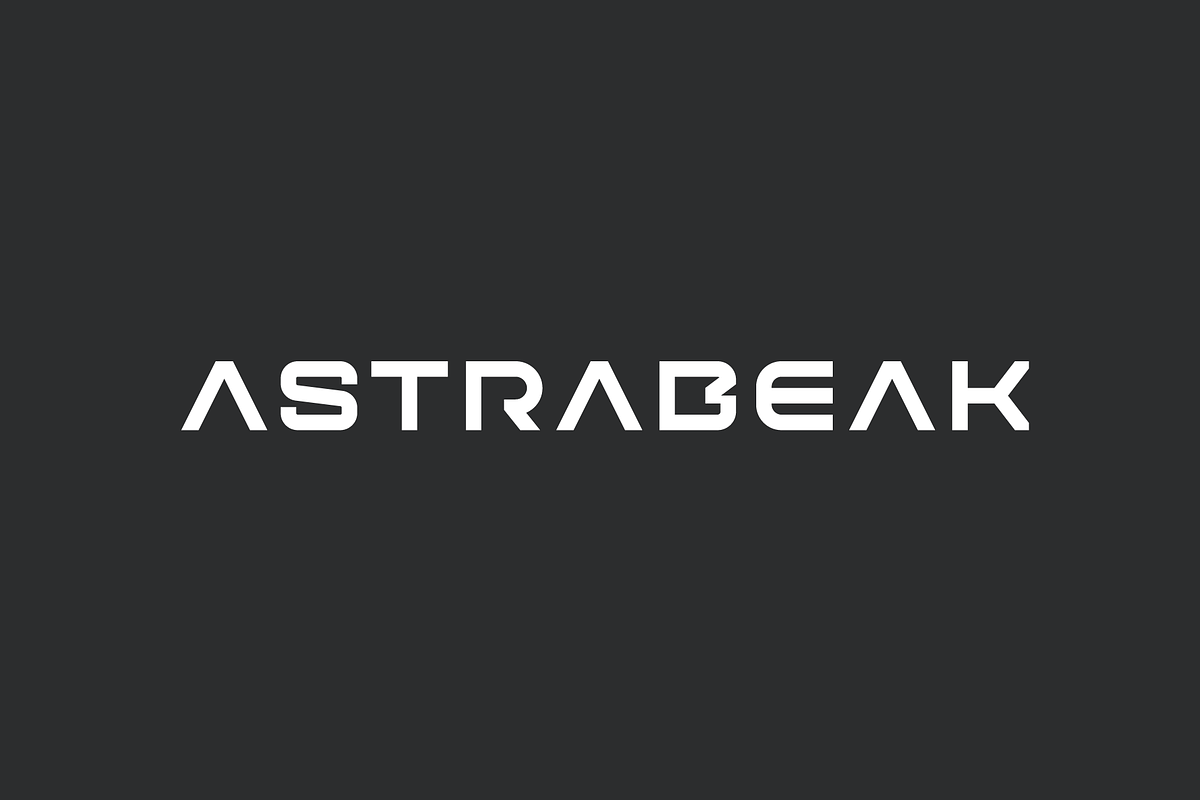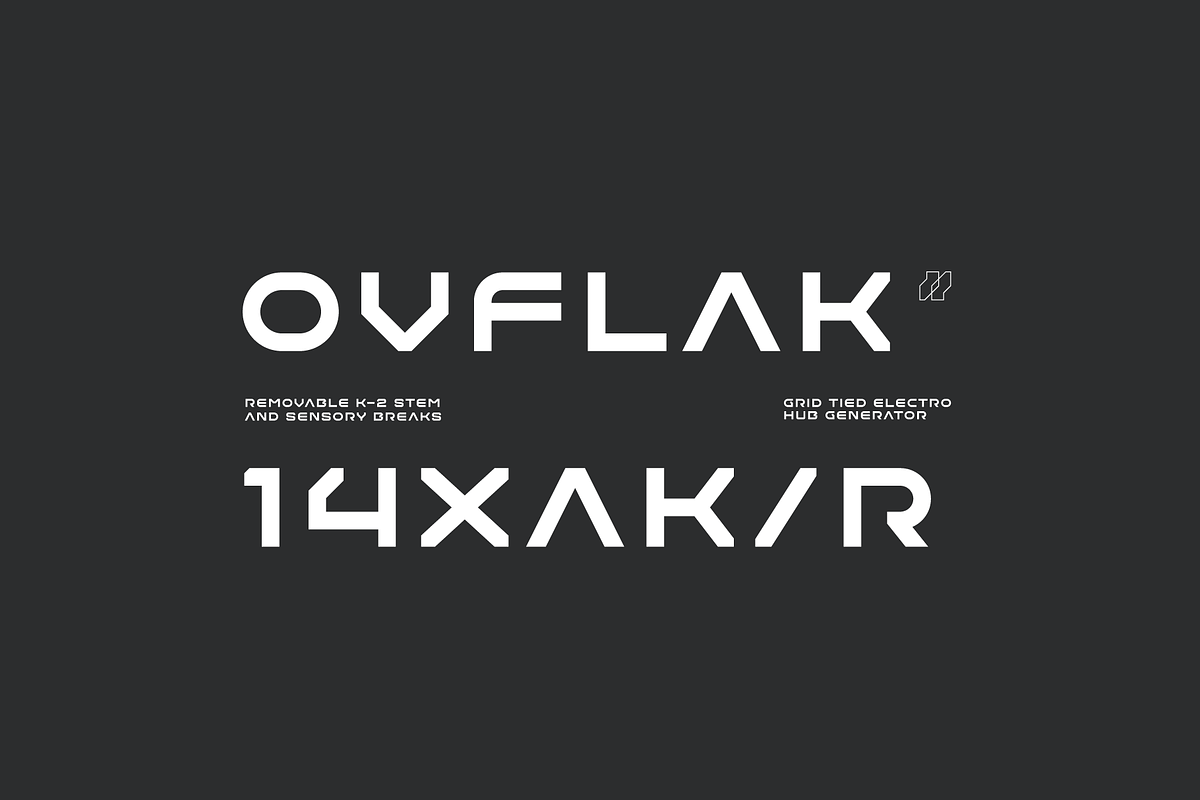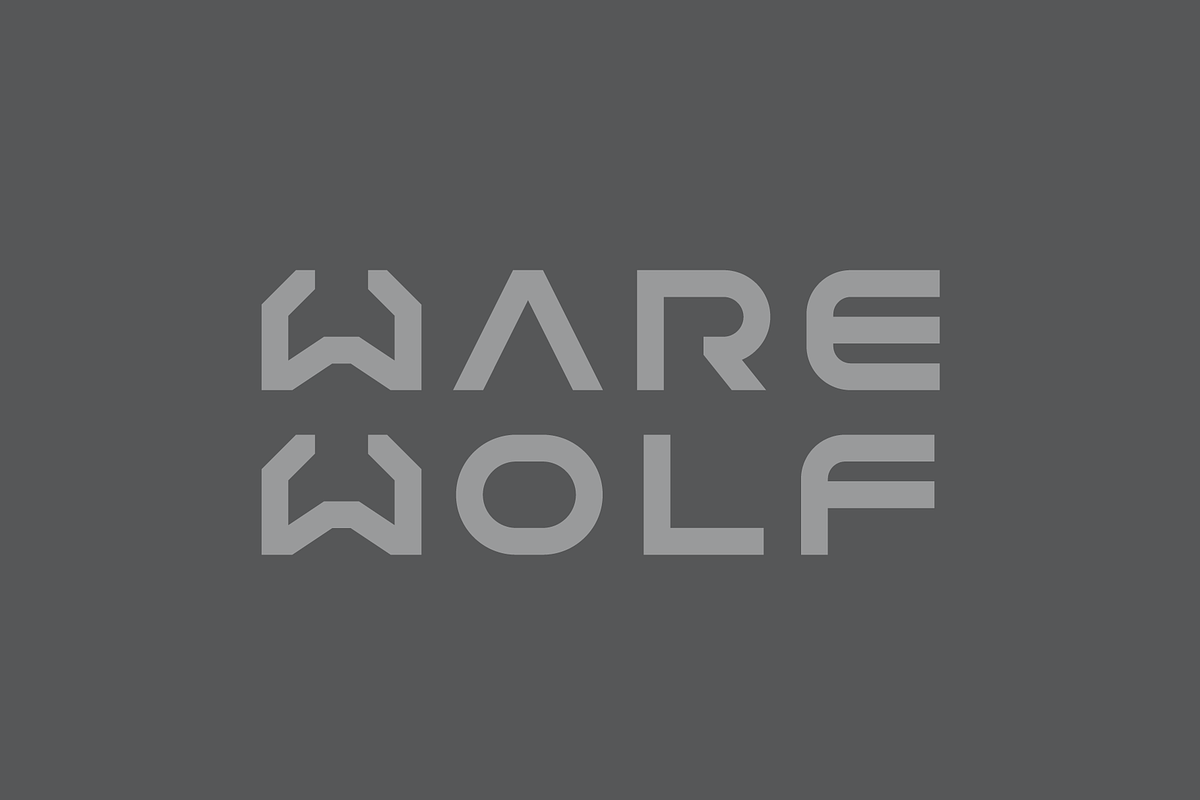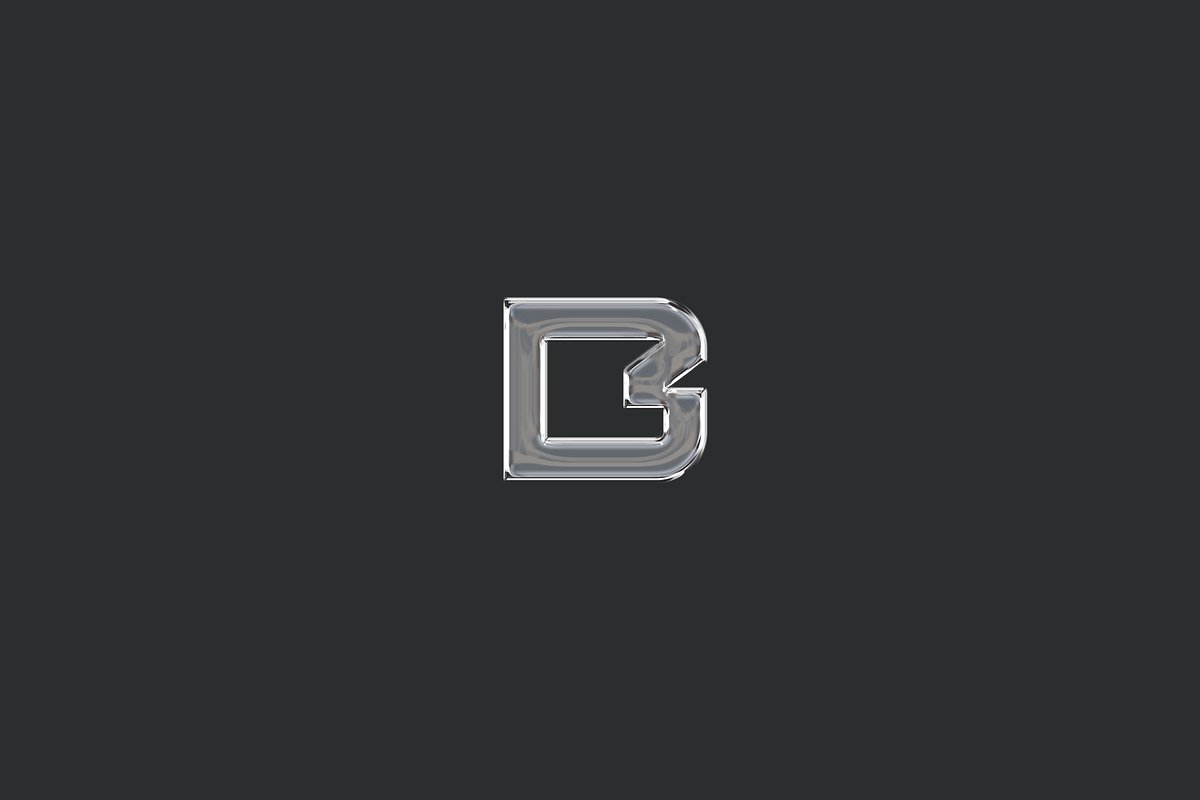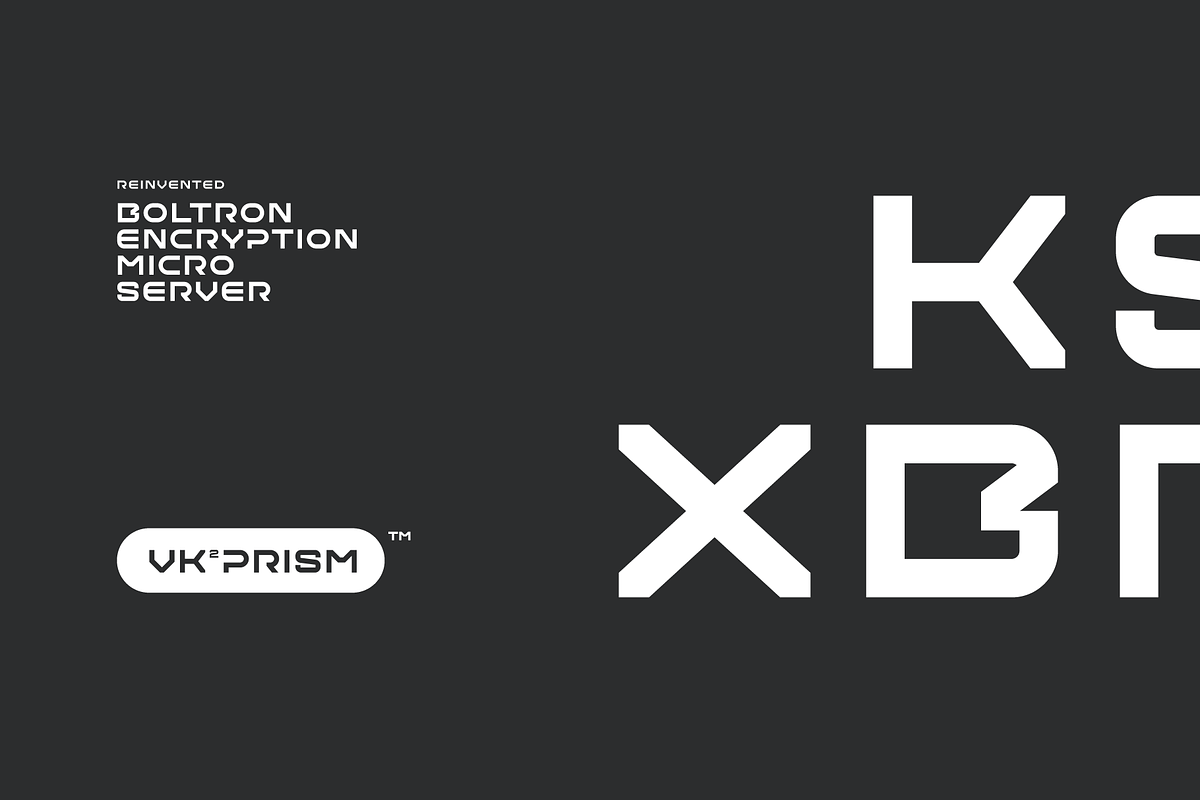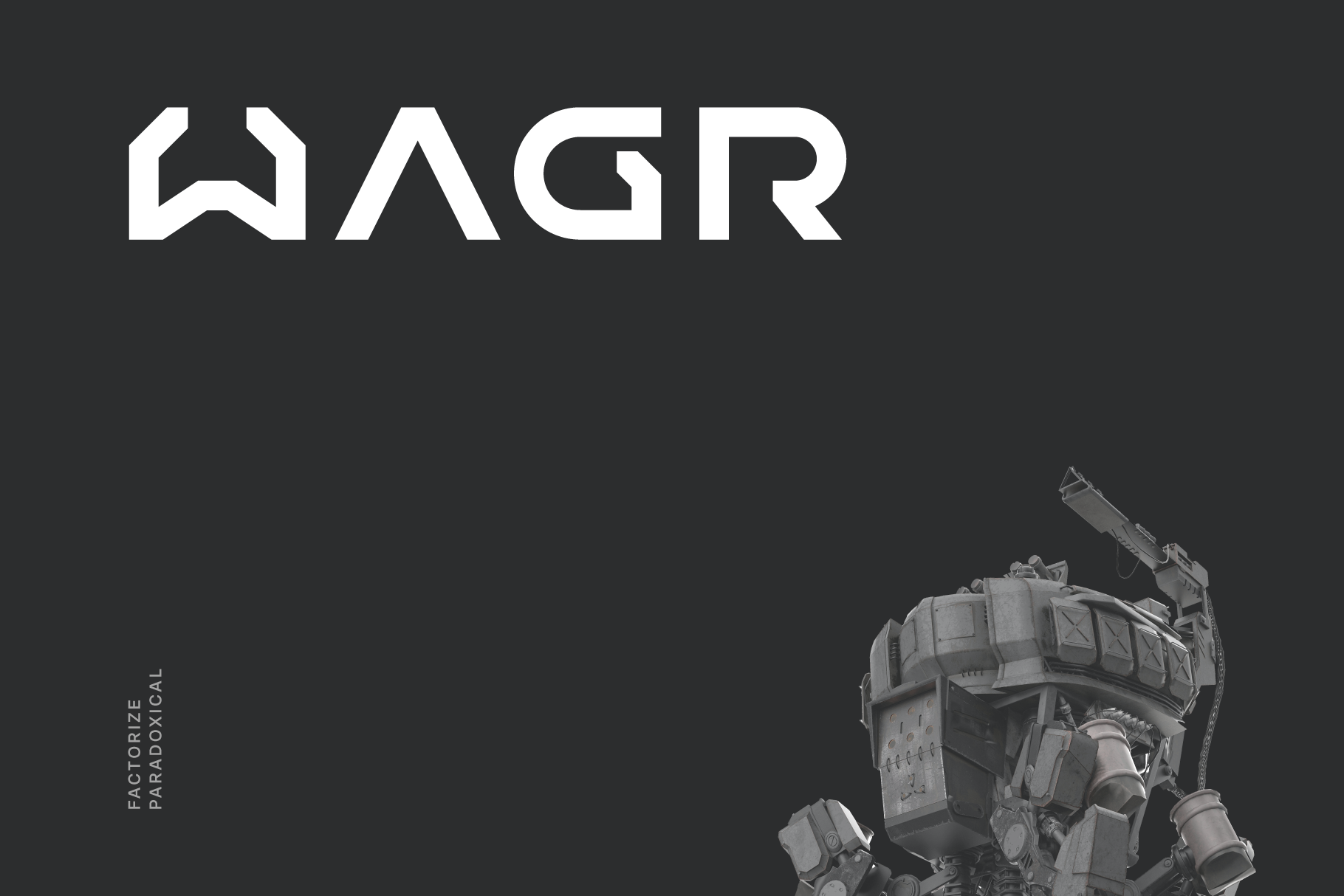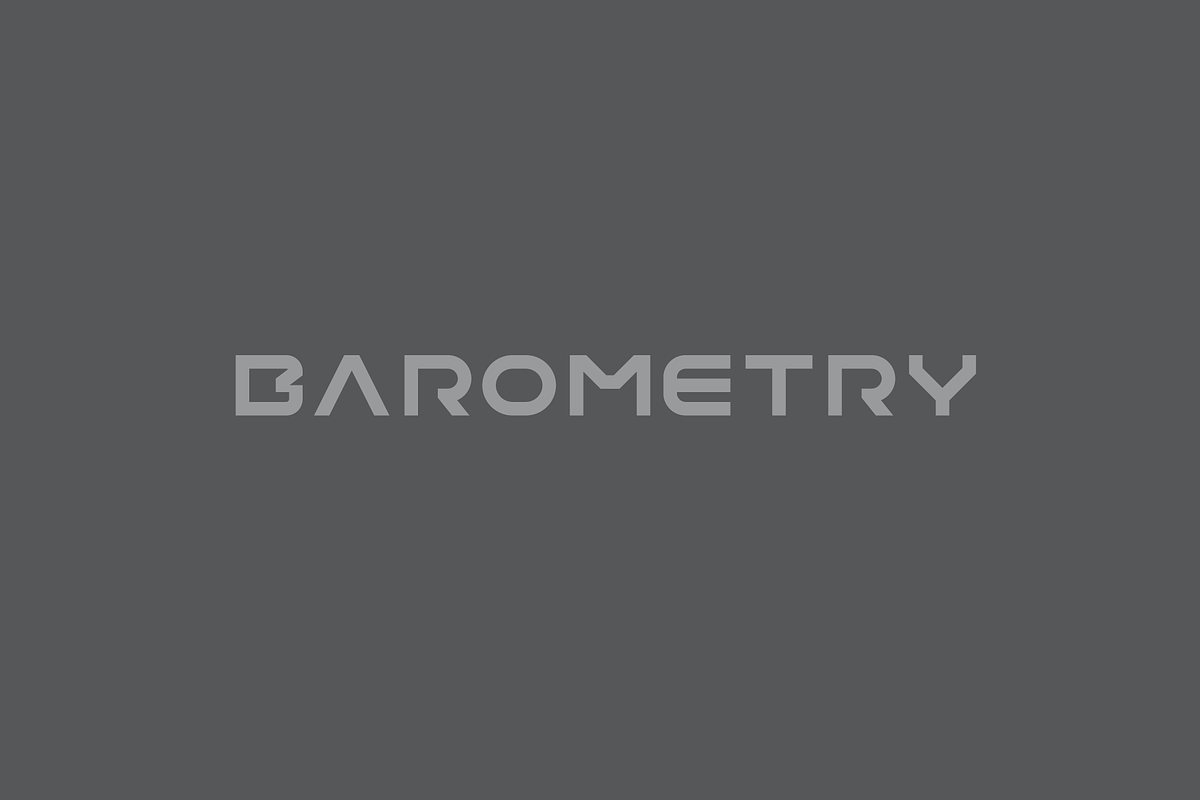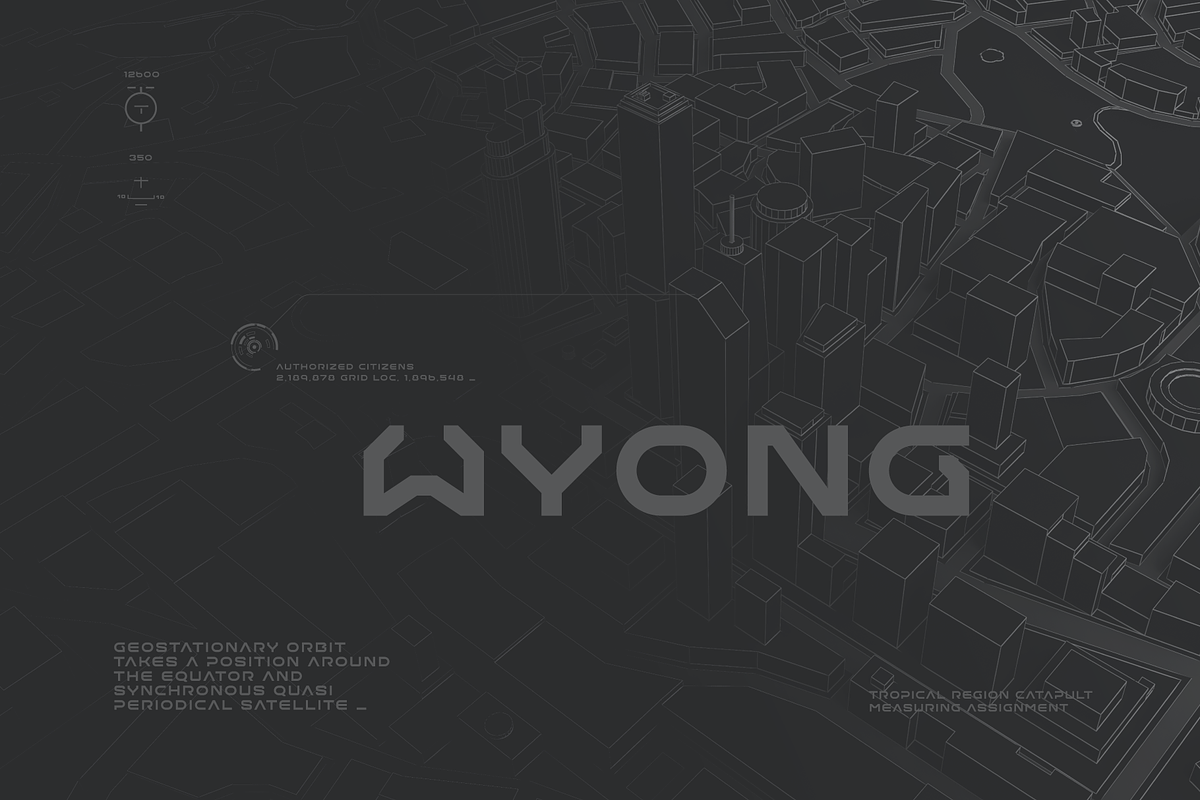
Wagr Futuristic Tech Font
Wagr is a factorize paradoxical tech display typeface apt for headline, editorial, branding, packaging, printed materials and typographic applications. 150+ glyphs with ligatures and fractions provided in opentype .otf and .woff format.